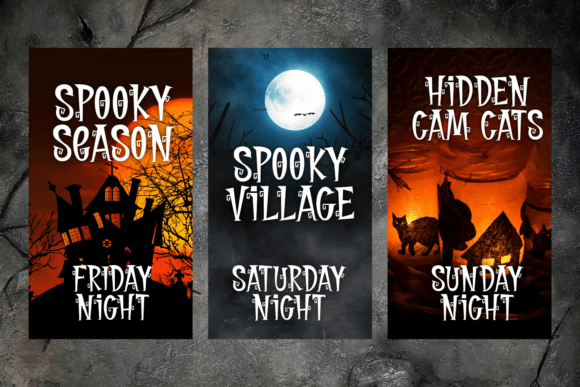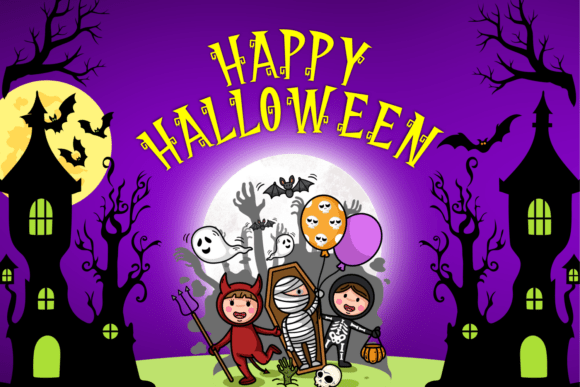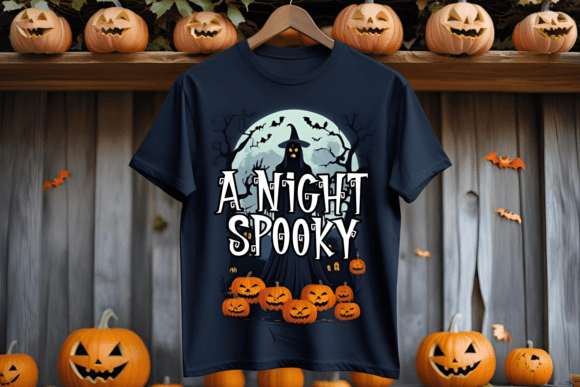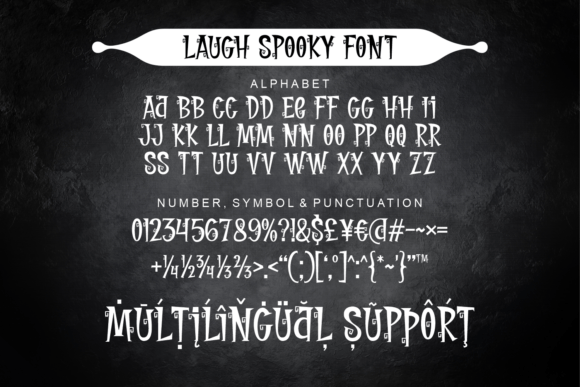
Introduction to Laugh Spooky Font
As a designer, there’s nothing quite like the thrill of crafting a project that captures the essence of a particular season or holiday. For many of us, Halloween is the perfect opportunity to unleash our creativity and tap into our inner macabre. And what better way to set the tone for your next spooky design project than with the Laugh Spooky Font?
This high-quality font is specifically designed to add an eerie yet appealing charm to your Halloween-themed designs. With its unique, handcrafted details, it’s the perfect design resource for any creative project, from event posters and flyers to product packaging and merchandise designs. And the best part? The Laugh Spooky Font is available for free download, making it a valuable addition to any designer’s toolkit.
Whether you’re working on a children’s book, a spooky logo for your seasonal business, or simply want to add a touch of the supernatural to your next design project, the Laugh Spooky Font is sure to deliver. With its transparent background and versatile design, it’s the perfect tool for designers looking to create high-quality, engaging visuals for any Halloween-related promotions.
Key Features of Laugh Spooky Font
- High-quality design resource ideal for creative projects, including invitations, posters, and digital art.
- Unique, spooky design aesthetic, perfect for Halloween-themed projects, horror movies, or any other creative project that requires a mysterious and eerie tone.
Honest Review: Laugh Spooky Font
I recently had the chance to work with the Laugh Spooky Font, and I must say it’s a great addition to any design resource collection. This font is perfect for creative projects that require a spooky or Halloween-themed aesthetic. It’s available as a free download, which is always a bonus!
What works well about the Laugh Spooky Font is its high quality and versatility. The font comes in a variety of styles, from bold and playful to creepy and eerie. The transparent background makes it easy to use in any design project, whether you’re creating a digital product or a physical item.
- Perfect for Halloween-themed projects or any other spooky designs
- High-quality and versatile font styles
However, there are a few limitations to keep in mind ⚠️. The font is only available in a limited range of sizes, and some of the styles may not be suitable for certain design projects. Additionally, the font may not be as polished as some other high-end fonts on the market.
Overall, I think the Laugh Spooky Font is a great choice for designers who are looking for a fun and spooky font to add to their collection. While it may have some limitations, it’s a great free resource that can help bring your creative project to life ✨.
Getting the Most Out of the Laugh Spooky Font
To get the most out of the Laugh Spooky Font, experiment with different font sizes, colors, and combinations with other fonts. Use the font to add a spooky touch to your creative project, such as a Halloween-themed poster or a horror movie title.